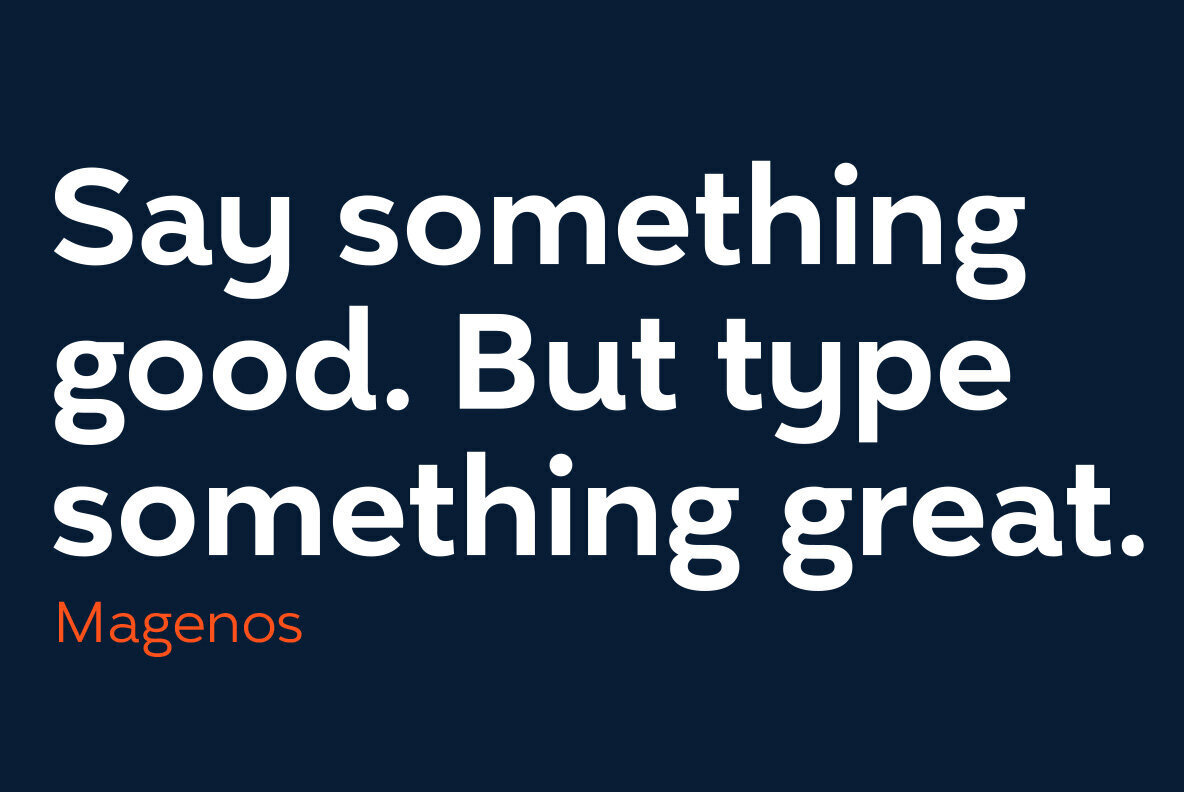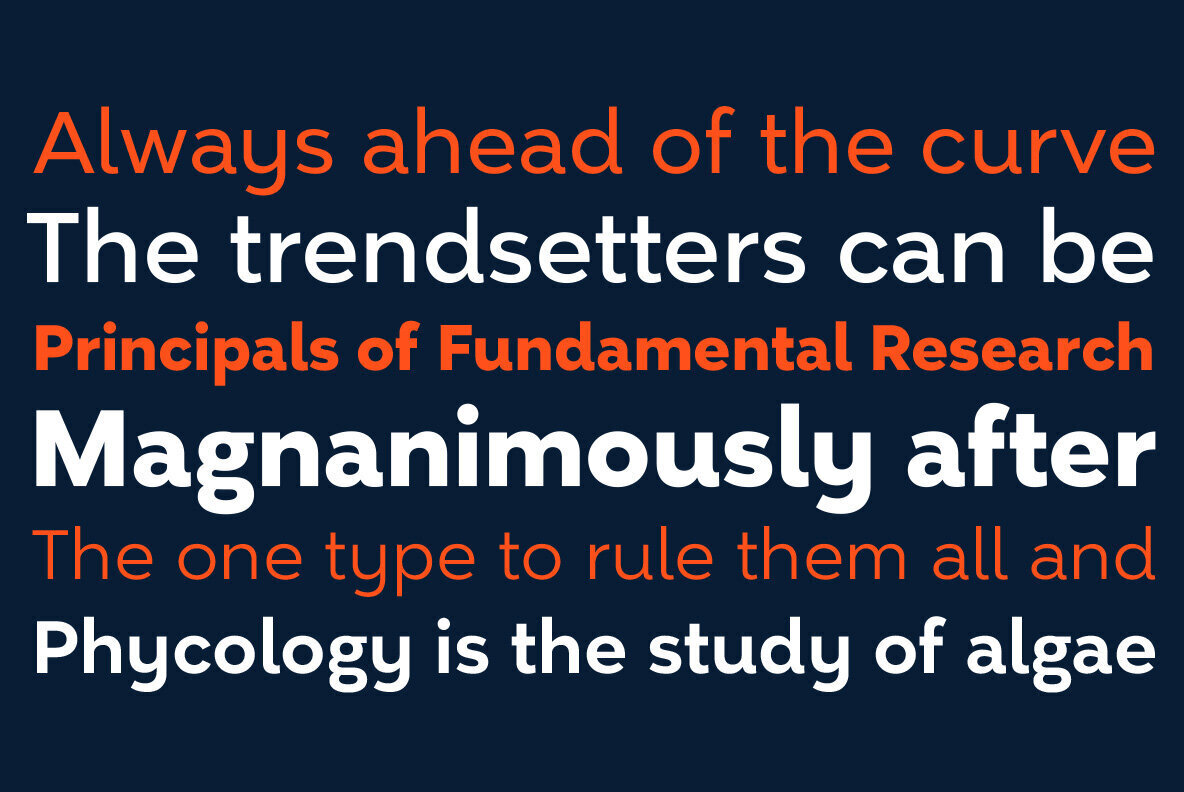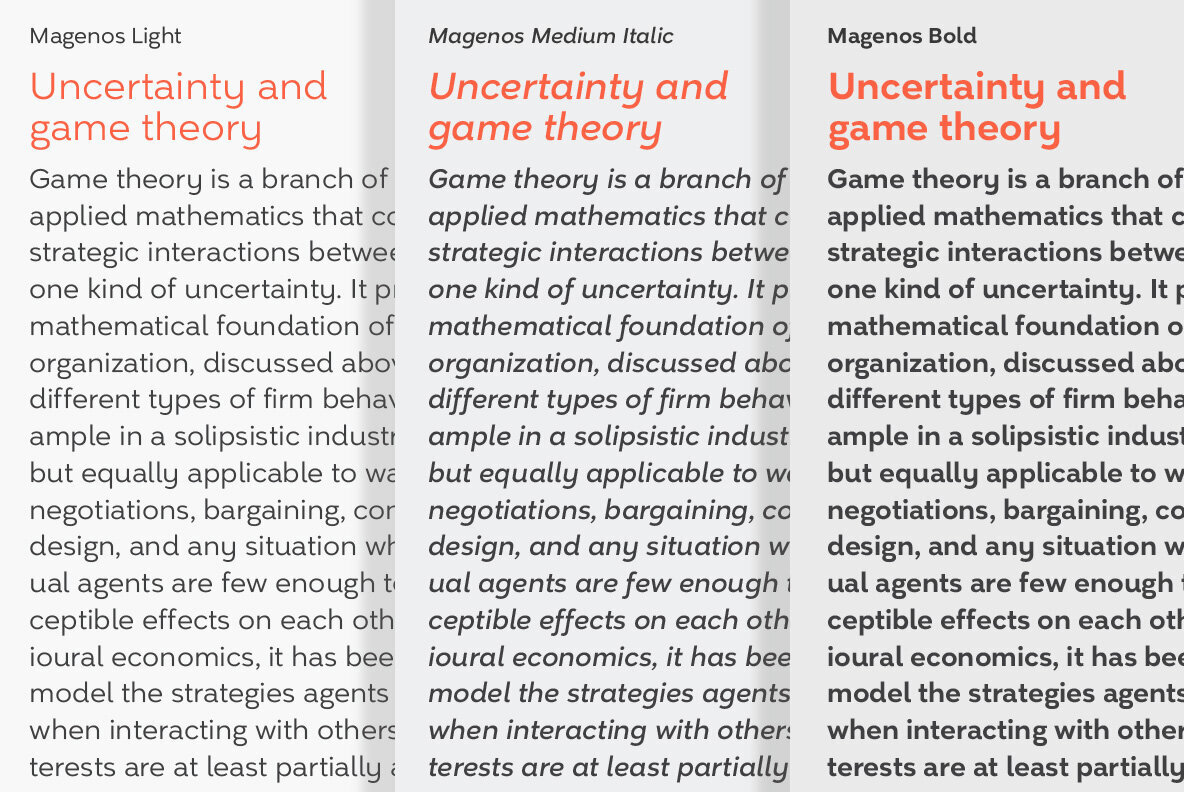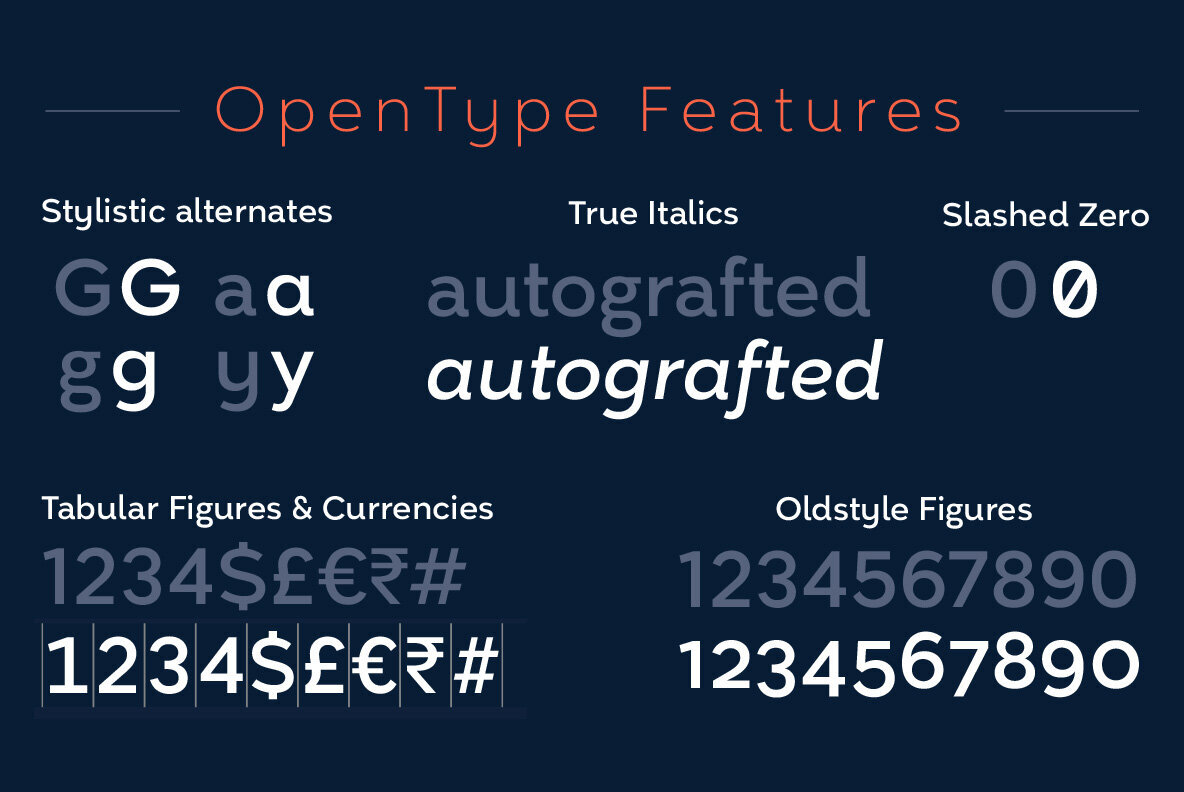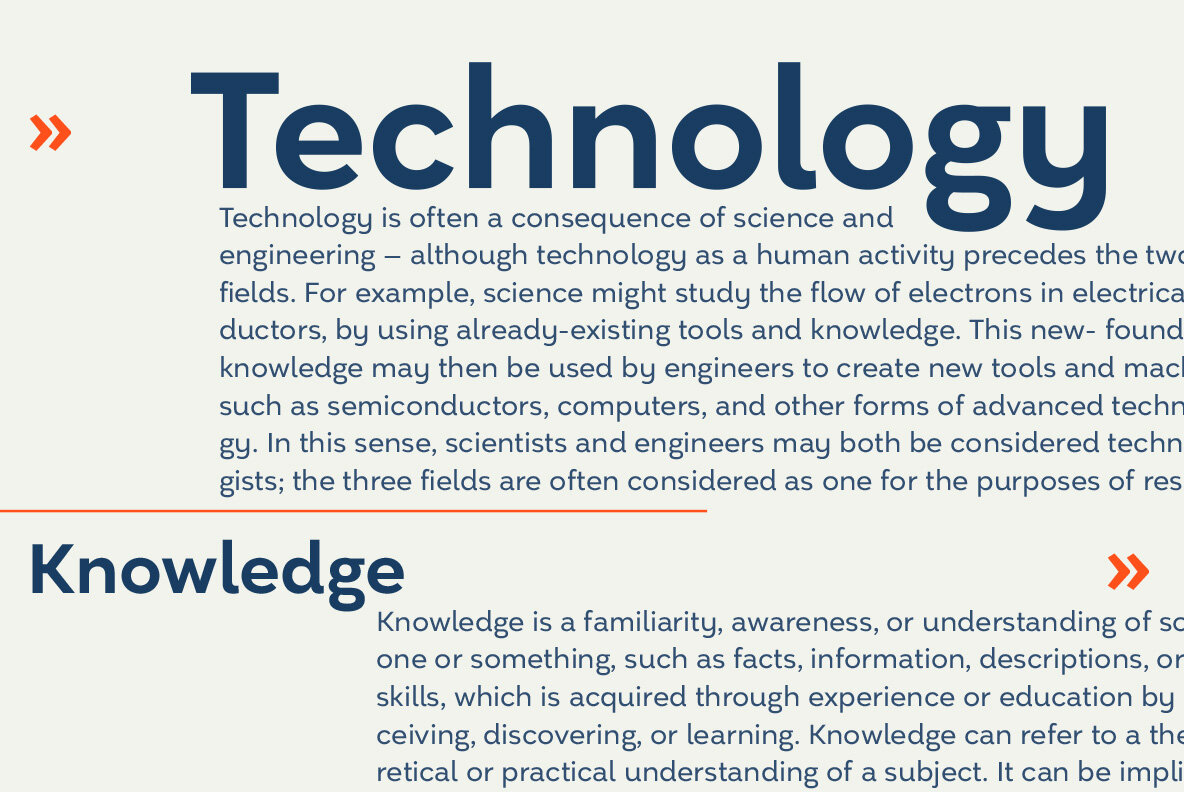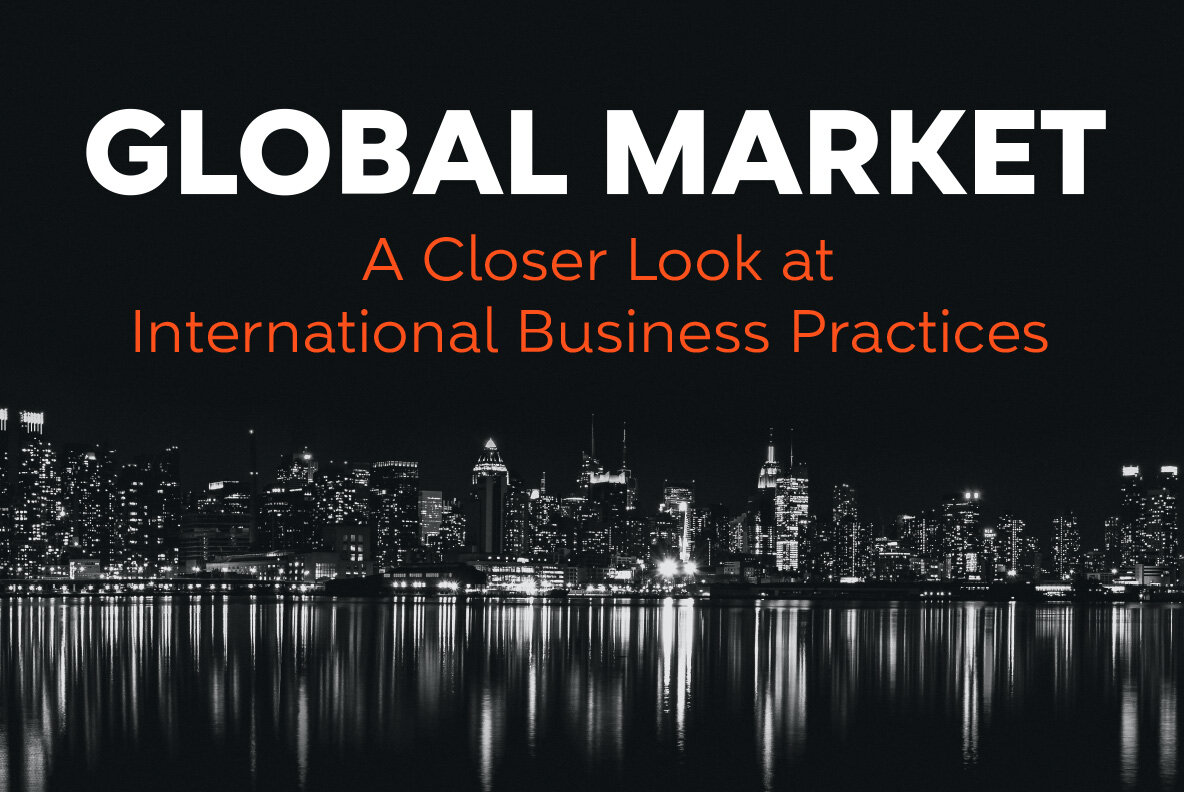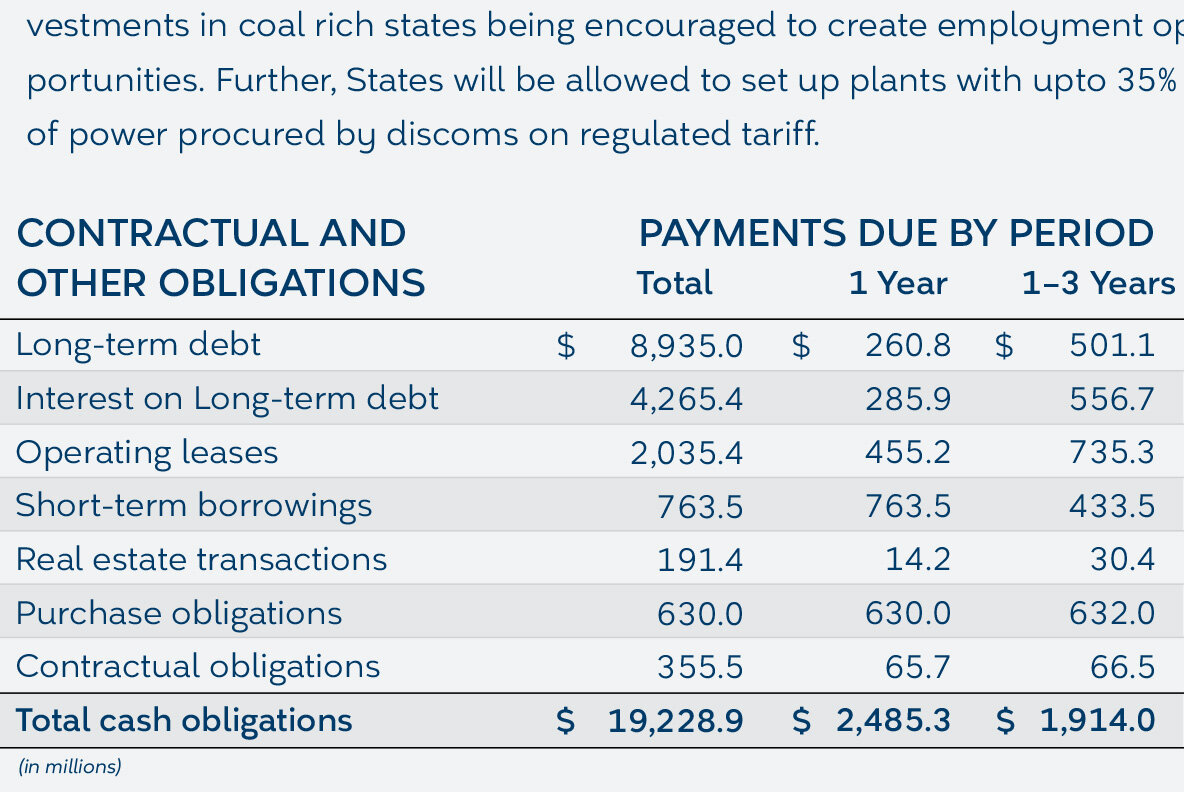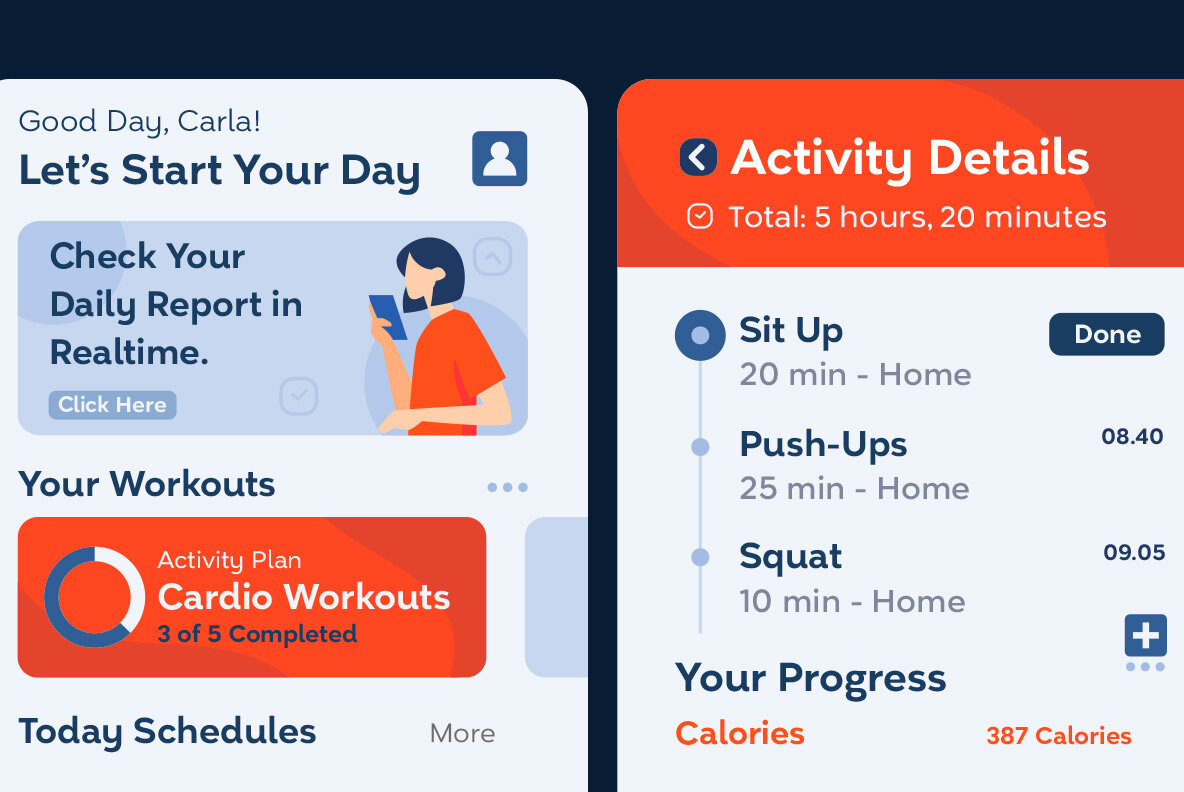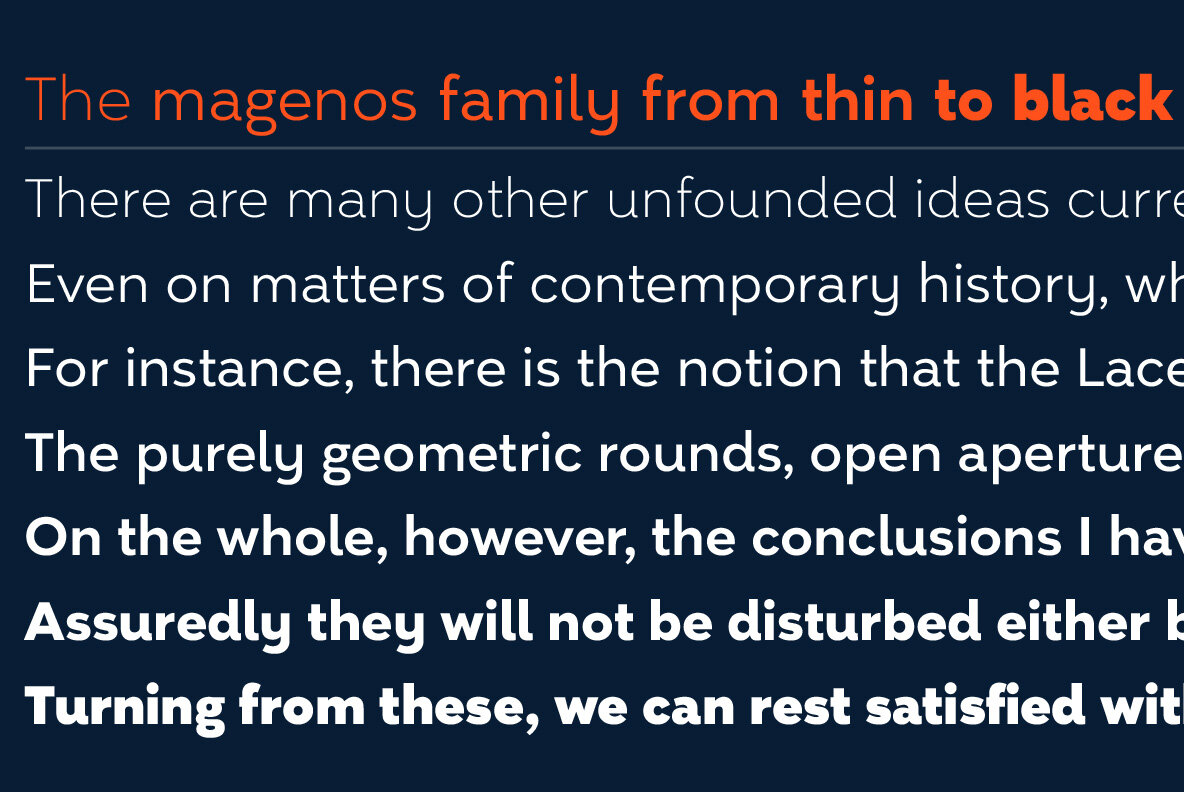
Magenos Font
Magenos is a modern geometric sans serif family characterized by its simplicity and extensive functionality. With its open apertures, geometric architecture and low contrast strokes, it expresses a sincere tone with a modernistic, neutral, yet friendly personality. It has been designed to work well for a wide range of applications and is a reliable workhorse. Equally suitable for print and screen usage, it works well for both text and display at a wide range of point sizes. The addition of true italics gives the whole family a dynamic edge and flexibility.
Magenos comes with many OpenType features including stylistic alternates, standard ligatures, old style and lining (proportional and tabular) numerals, slashed zero and a variety of symbols. This makes it an excellent choice for graphic designers who are looking for a versatile and reliable typeface that they can use for both text and display purposes.